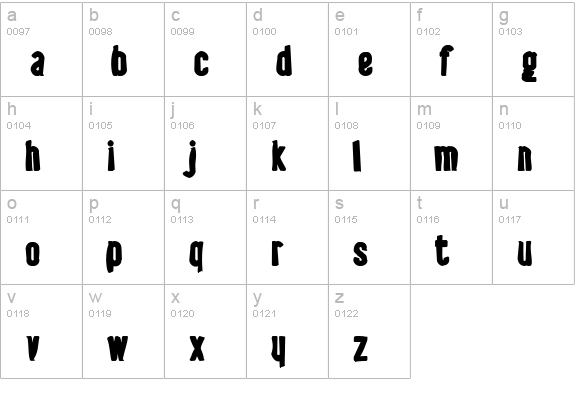
Introducing the captivating and versatile Libel Suit Ink font, a unique typeface that exudes a charming hand-drawn quality. With its bold strokes and quirky flair, this font adds a touch of whimsy and personality to any design project. Perfect for posters, logos, invitations, and more, Libel Suit Ink is sure to make a statement and captivate your audience. What's even better? Libel Suit Ink is available for free download at FontsMarket.com. Yes, you read that right - this amazing font can be yours at no cost, allowing you to unleash your creativity without breaking the bank. So why wait? Download Libel Suit Ink today and bring a touch of artistic flair to your next project.